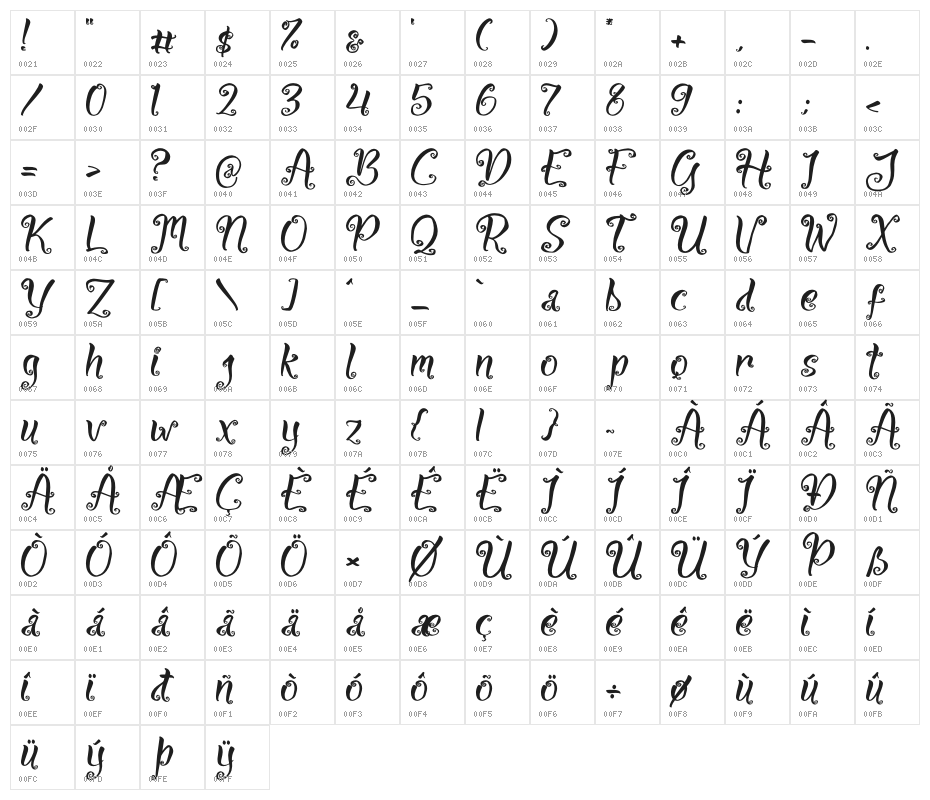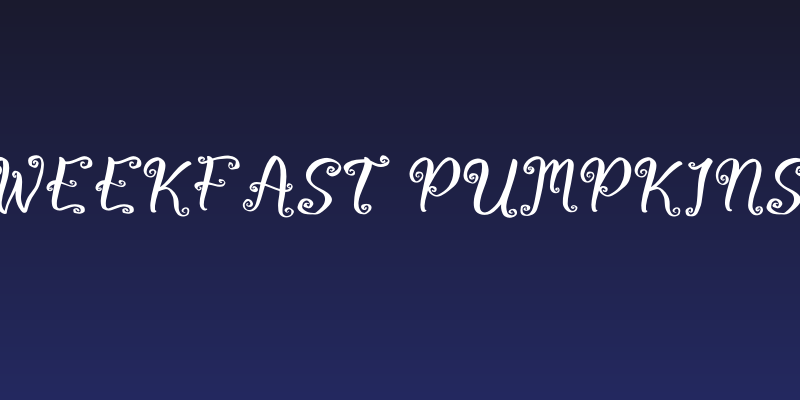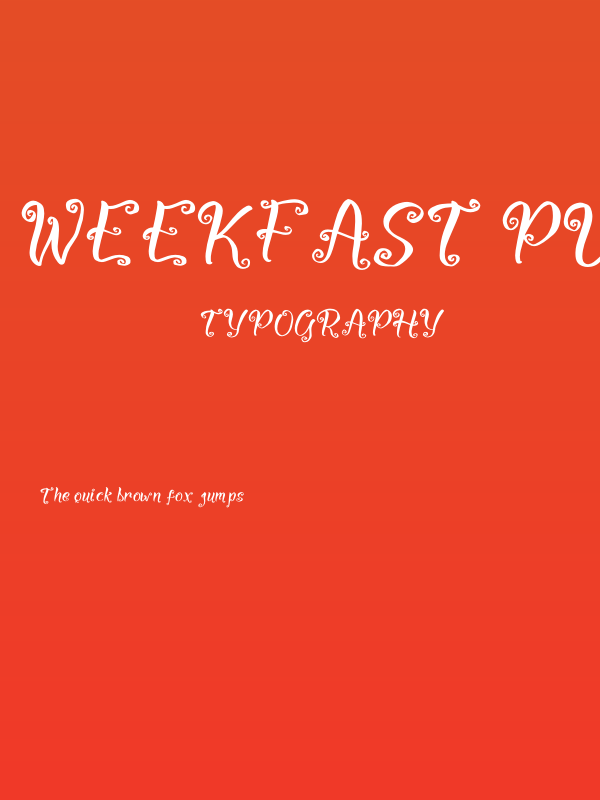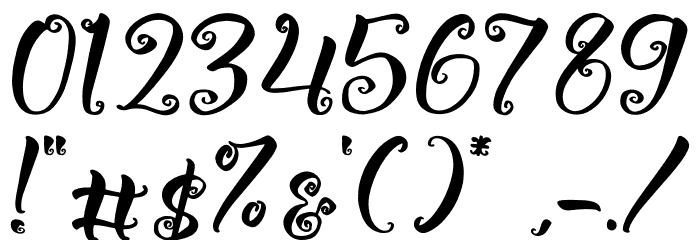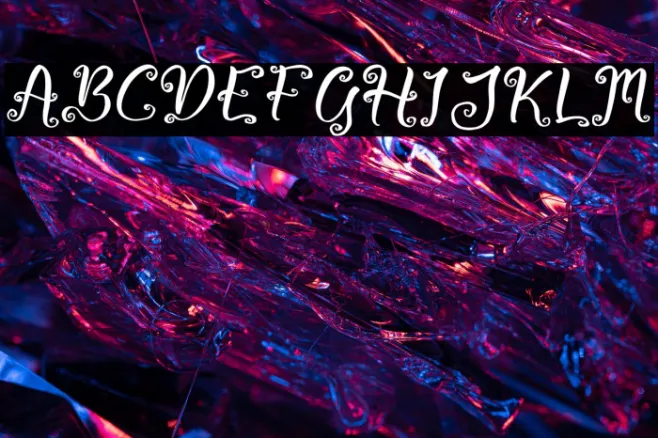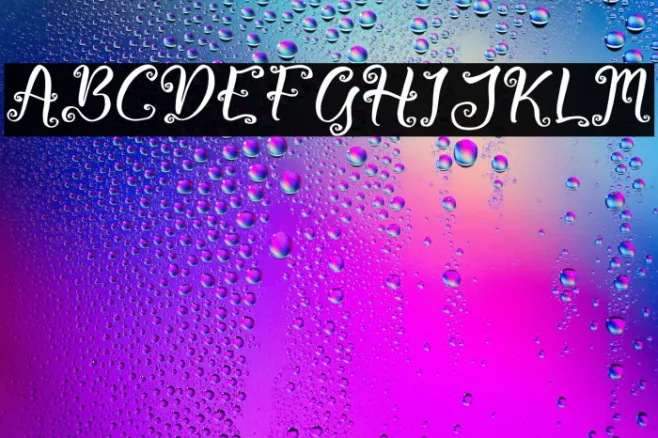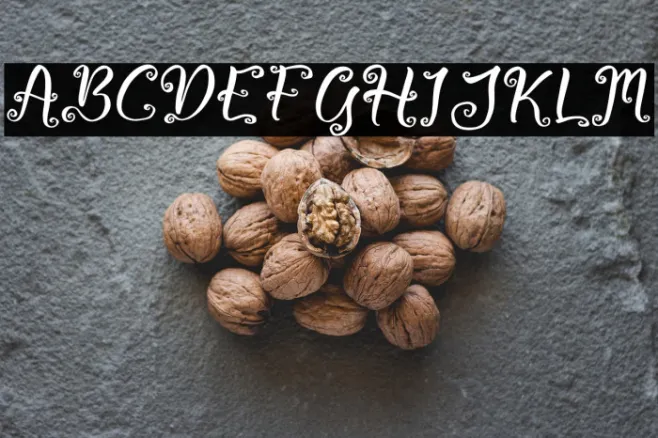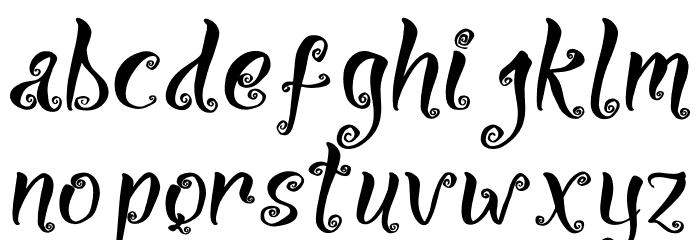
Weekfast Pumpkins Font
Weekfast Pumpkins Description
This whimsical and playful font features curly and decorative elements that give it a unique and artistic flair. Each character is adorned with swirls and loops, creating a sense of movement and fun. The uppercase letters are bold and prominent, while the lowercase letters maintain the same decorative style with a slightly more relaxed form. Numbers and special characters are equally embellished, ensuring consistency across the entire typeface. This font is perfect for projects that require a touch of creativity and imagination, such as children's books, party invitations, or playful branding.
| Overall Style | Playful and Artistic |
| Use Case | Headlines, Logos, Creative Projects |
| Proposed Projects | Ideal for children's books, party invitations, playful branding, and creative projects. |